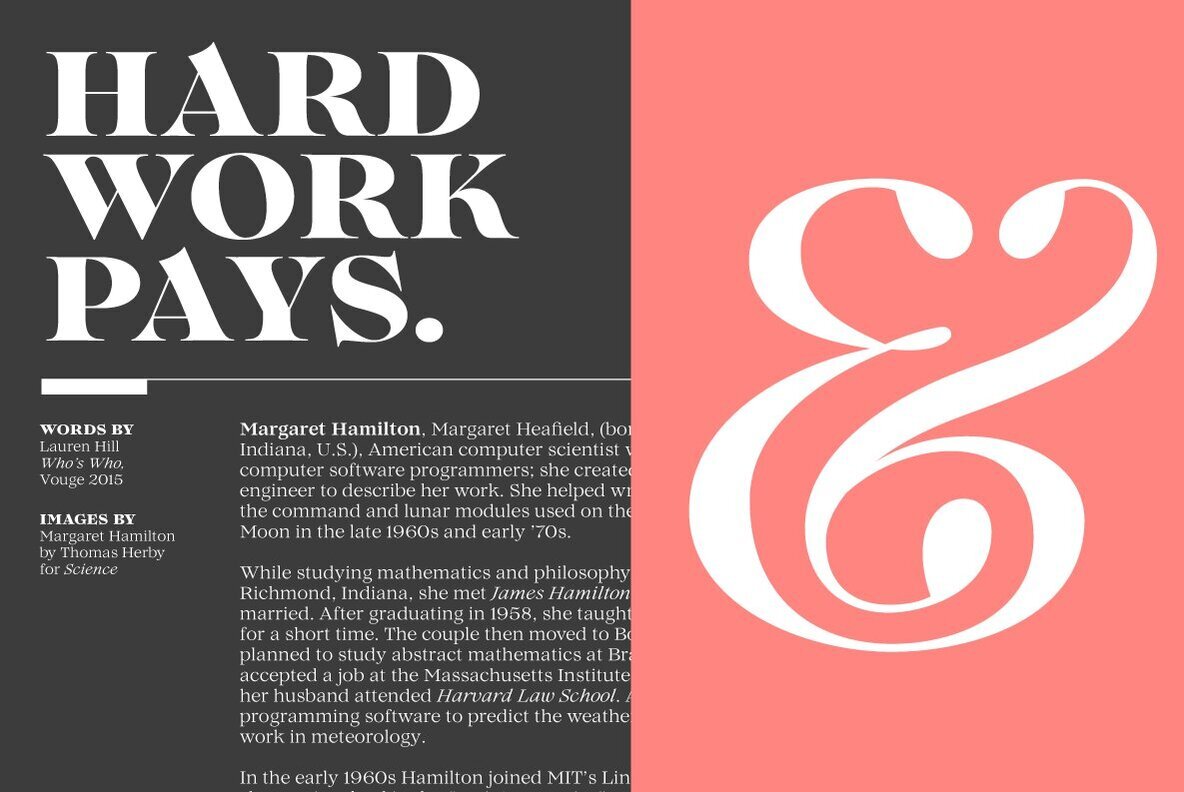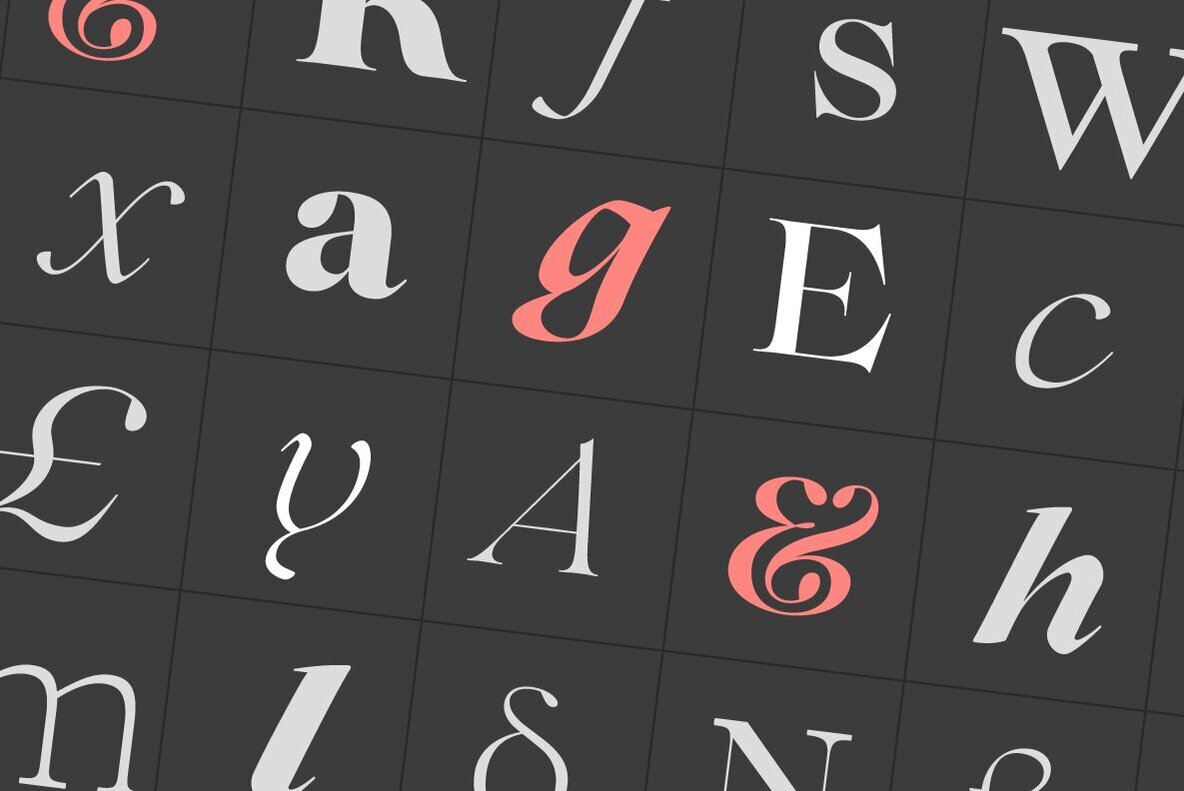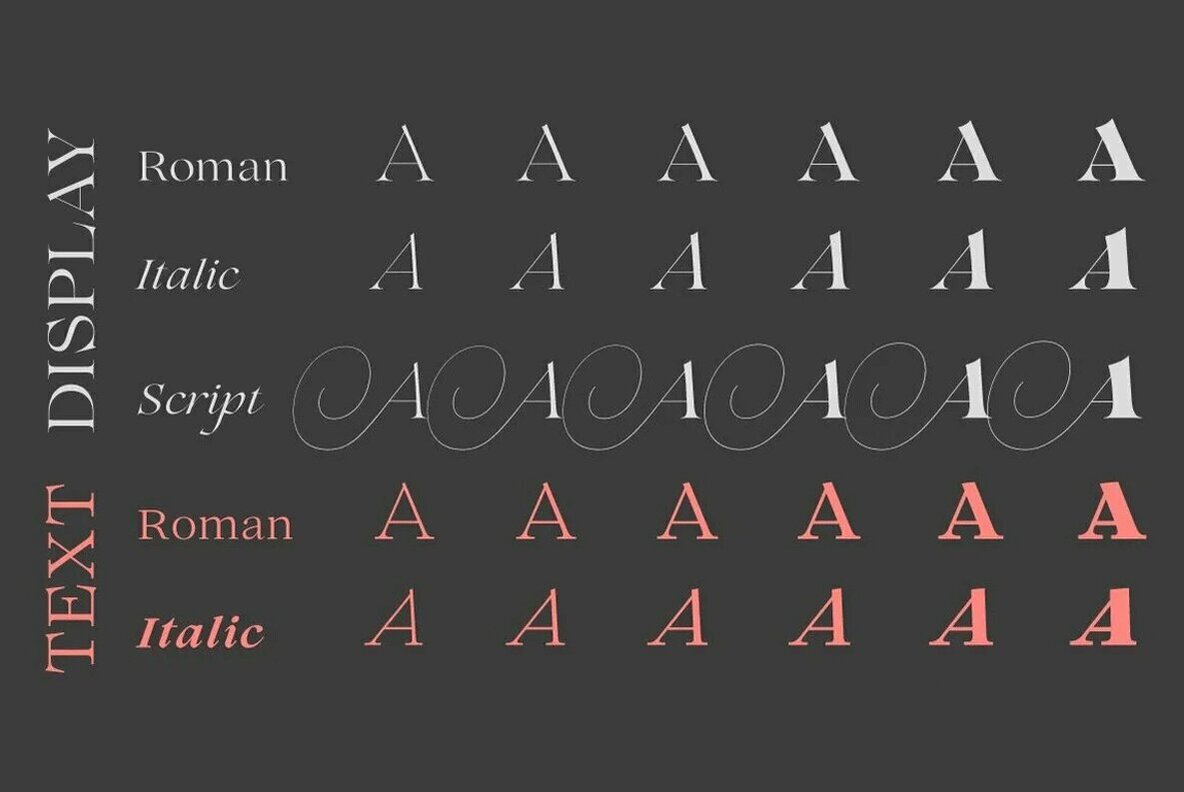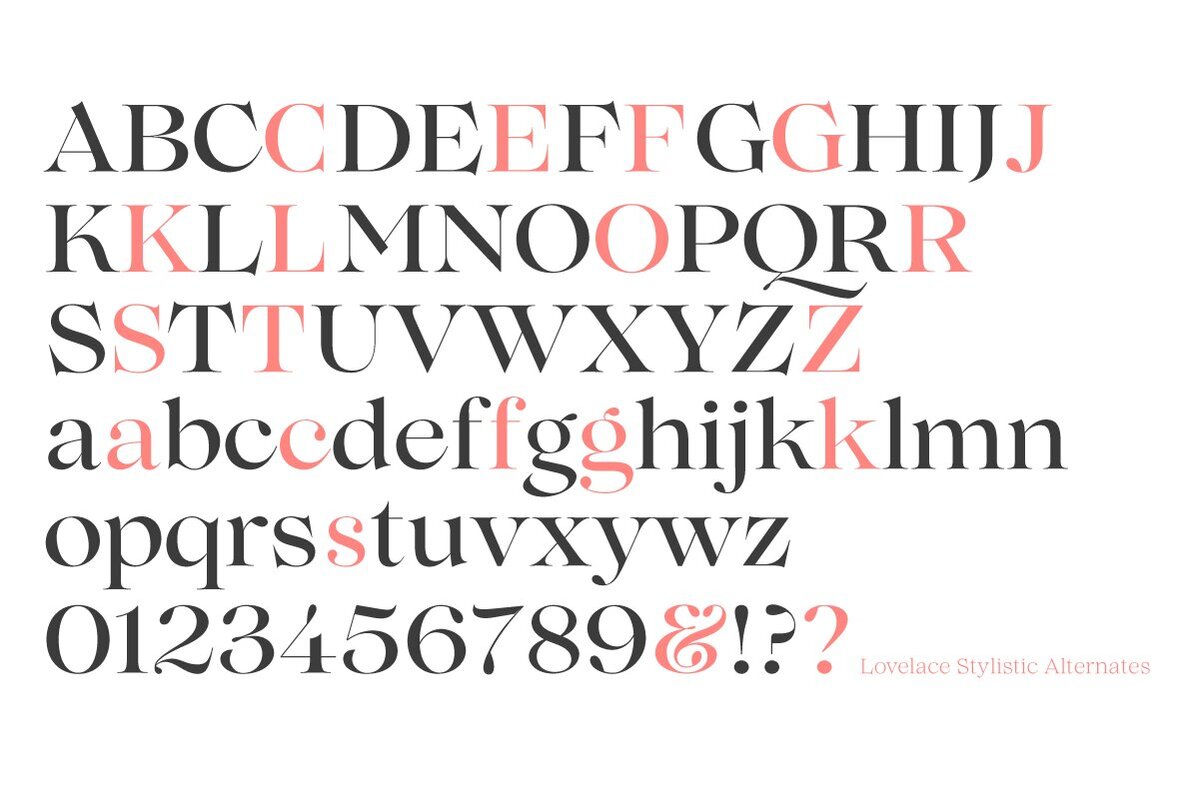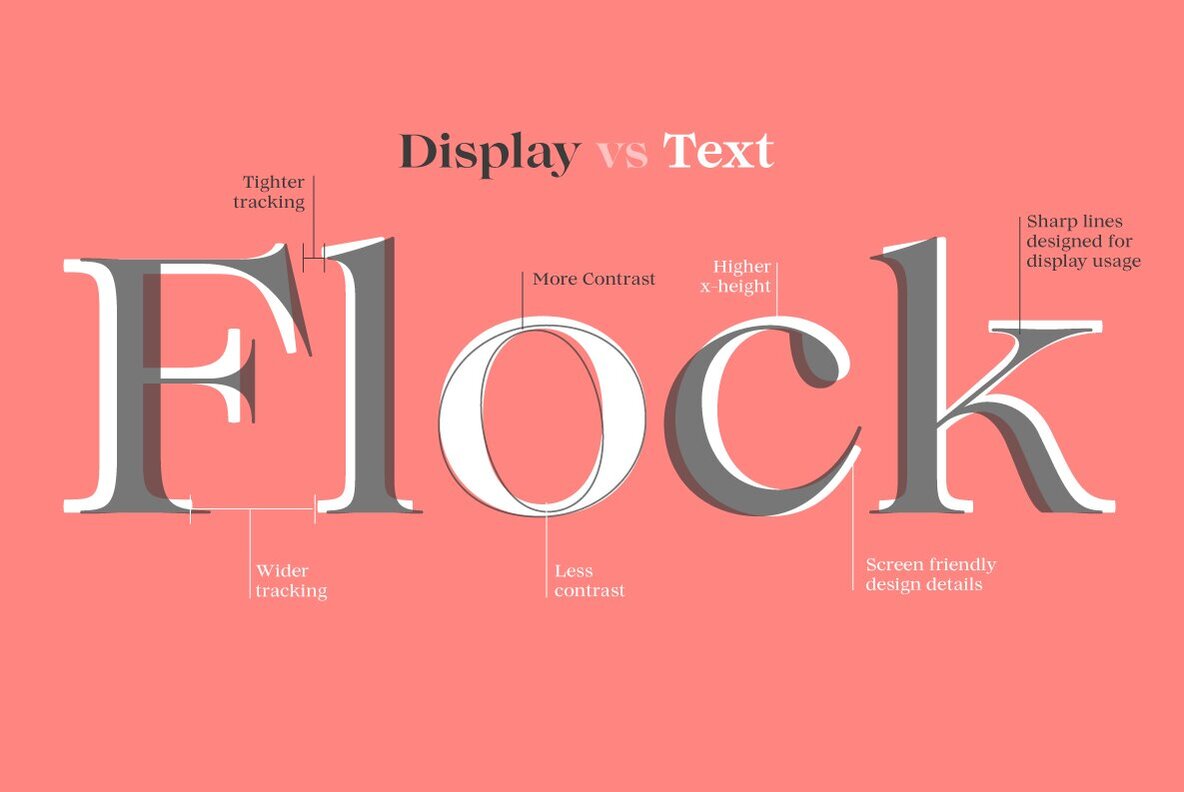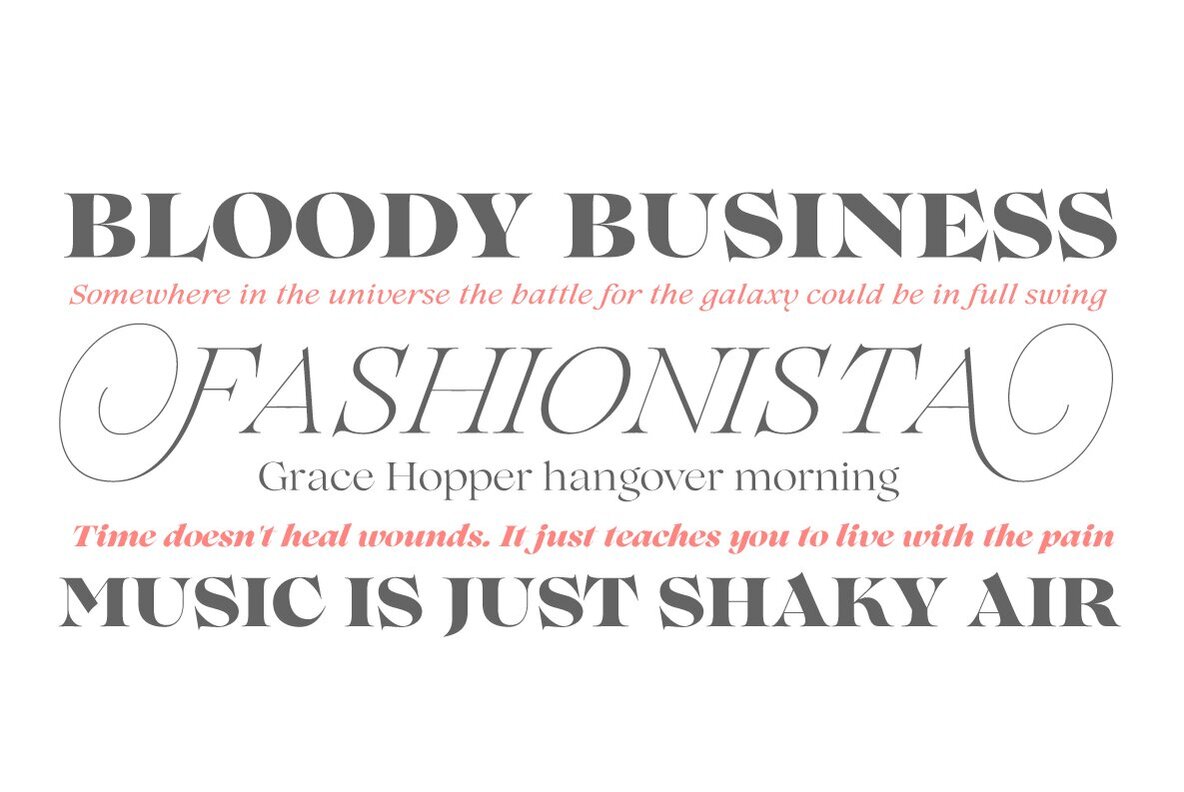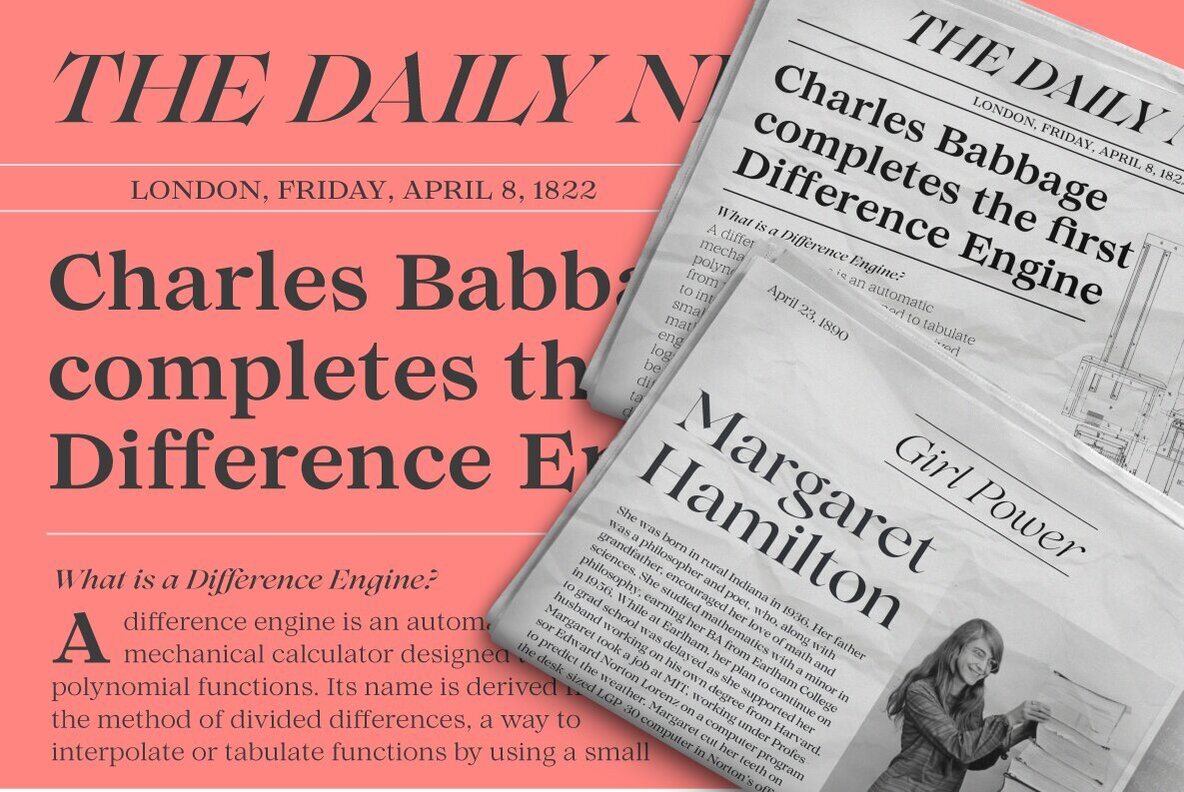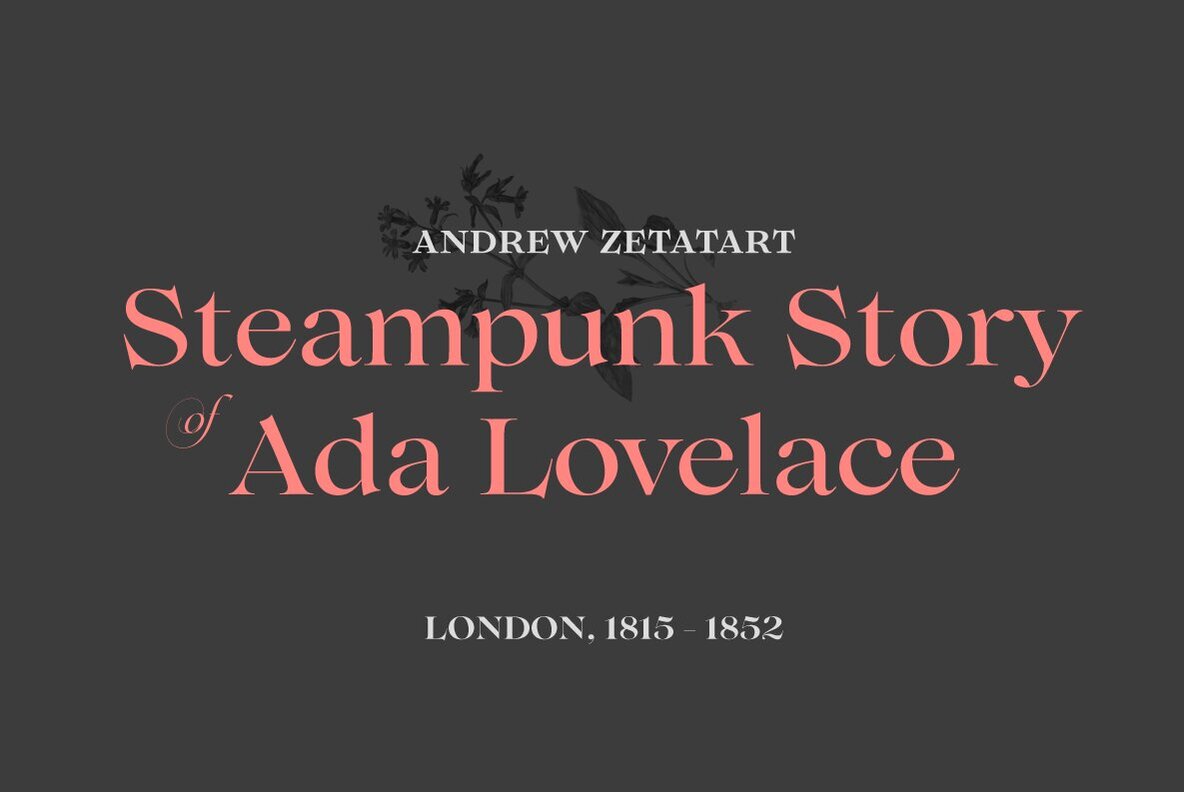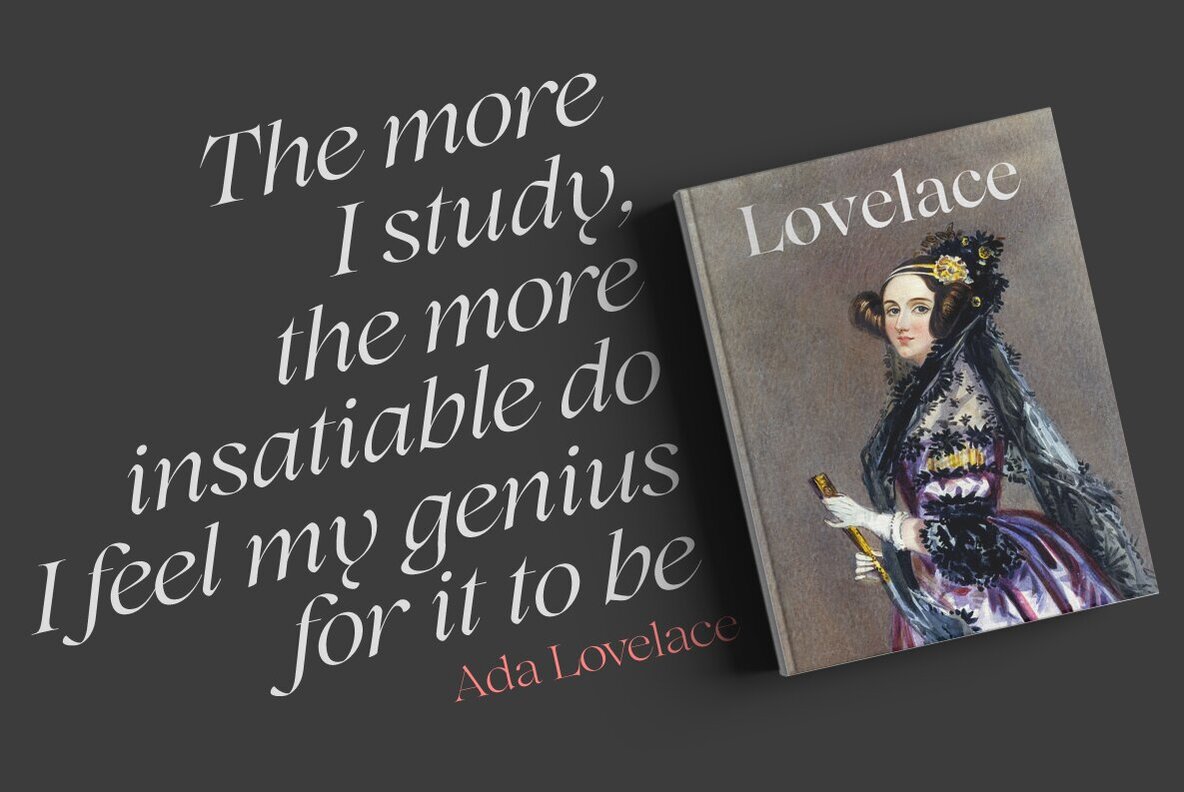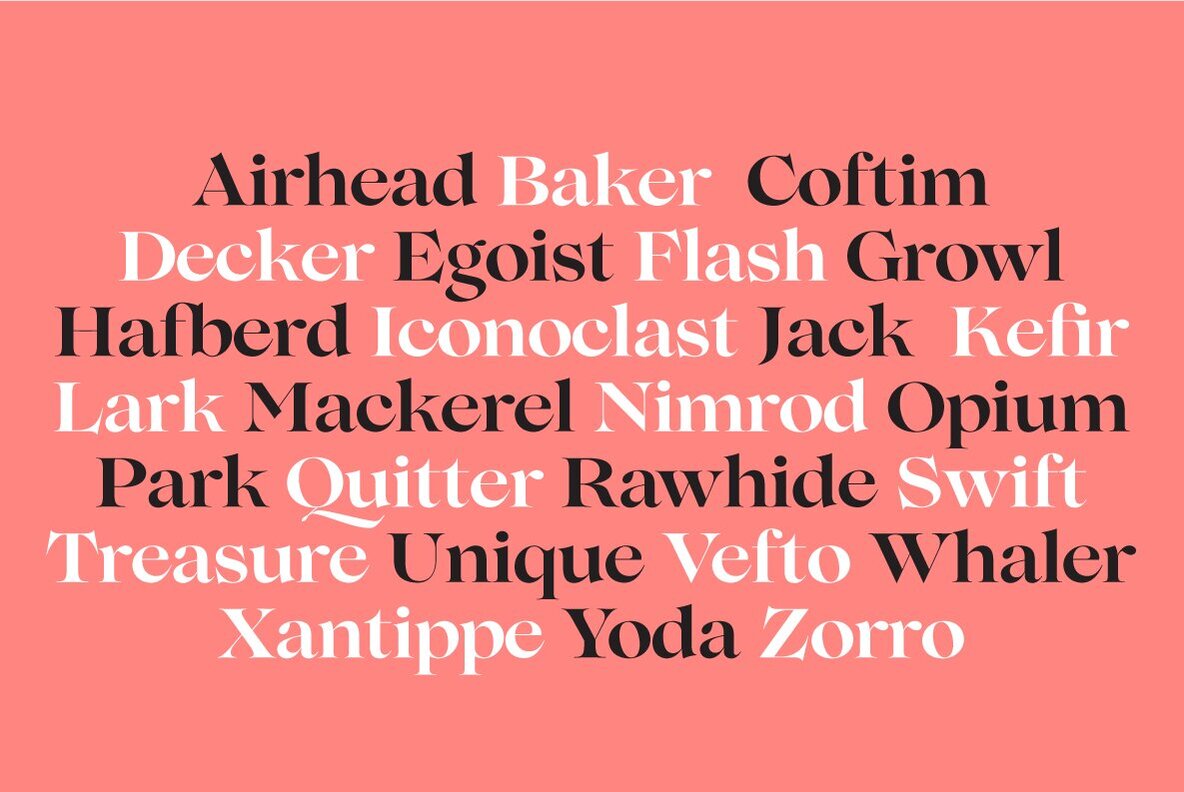
Lovelace Font
Designed by Cosimo Lorenzo Pancini and Andrea Tartarelli with Maria Chiara Fantini, Lovelace is Zetafonts homage to the tradition of nineteenth century “Old Style” typography - a revival of Renaissance hand-lettered shapes driven by the desire to create a less formal and more friendly alternative to Bodonian serifs. While taking inspiration from the letter shapes created by Pheimester or Alexander Kay - with their calligraphic curves and heavy angled serifs that influenced Benguiat and Goudy’s typefaces in the 70s - we also tried to add elegance and contrast by following another 19th century revival style: the Elzevir. This digital homage to victorian typography, aptly named after the algorist daughter of lord Byron, is developed in two optical sizes, both in a six weights range from extralight to extrabold.
The text variant offers maximum readability thanks to the generous x-height and screen-friendly design, while the display variant excels in the sharp contrast and thin details needed for editorial and large-size titling use. The italics, strongly influenced by calligraphy, have been complemented with a display script family, including luscious swashes and connected lowercase letters, lovingly designed by Zetafont in-house calligrapher.
All the thirty weights of Lovelace cover over 200 languages that use latin, cyrillic and greek alphabets, and include advanced Open Type features as Stylistic Alternates, Standard and Discretionary Ligatures, Positional Numerals, Small Caps and Case Sensitive Forms.